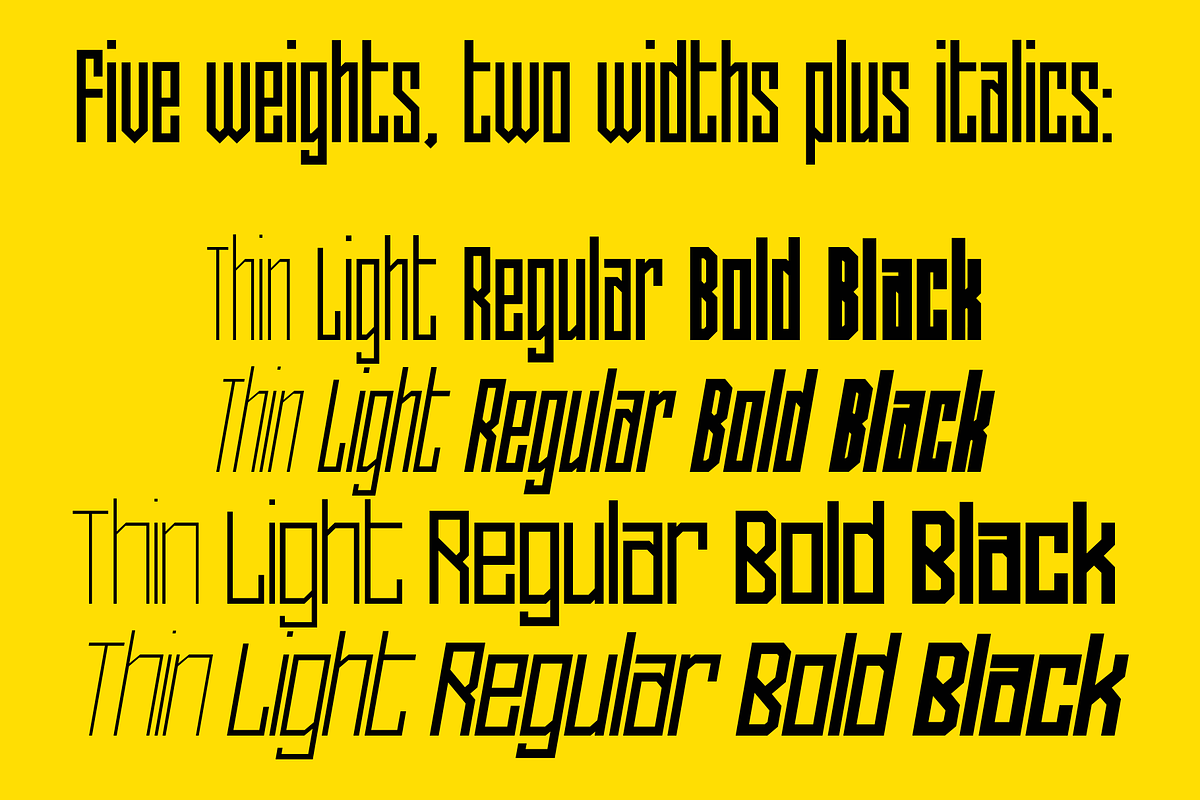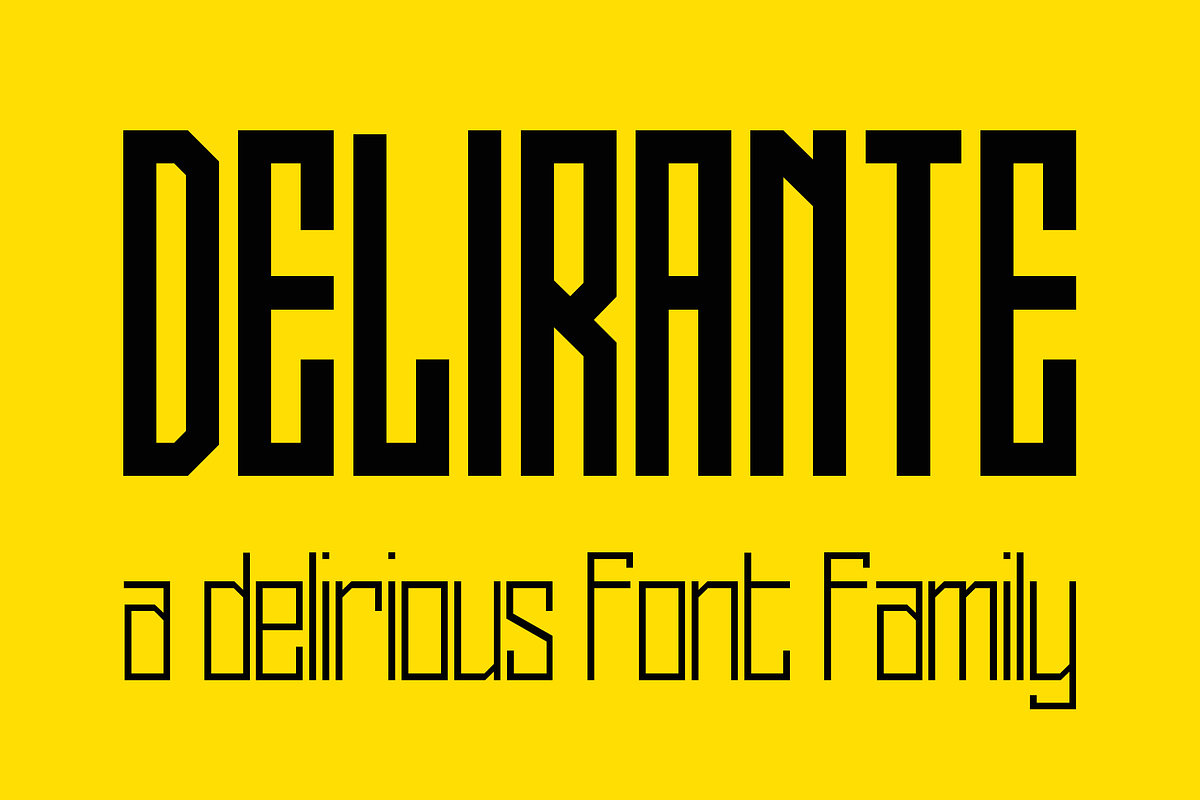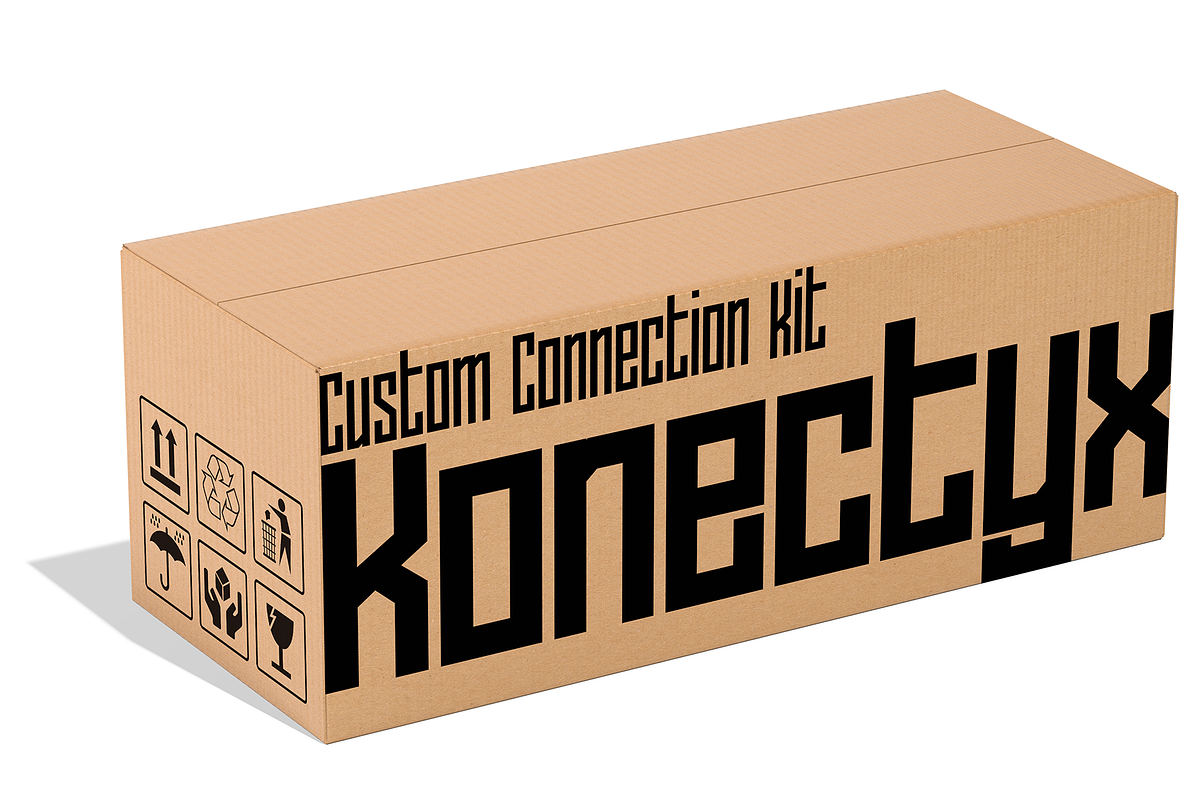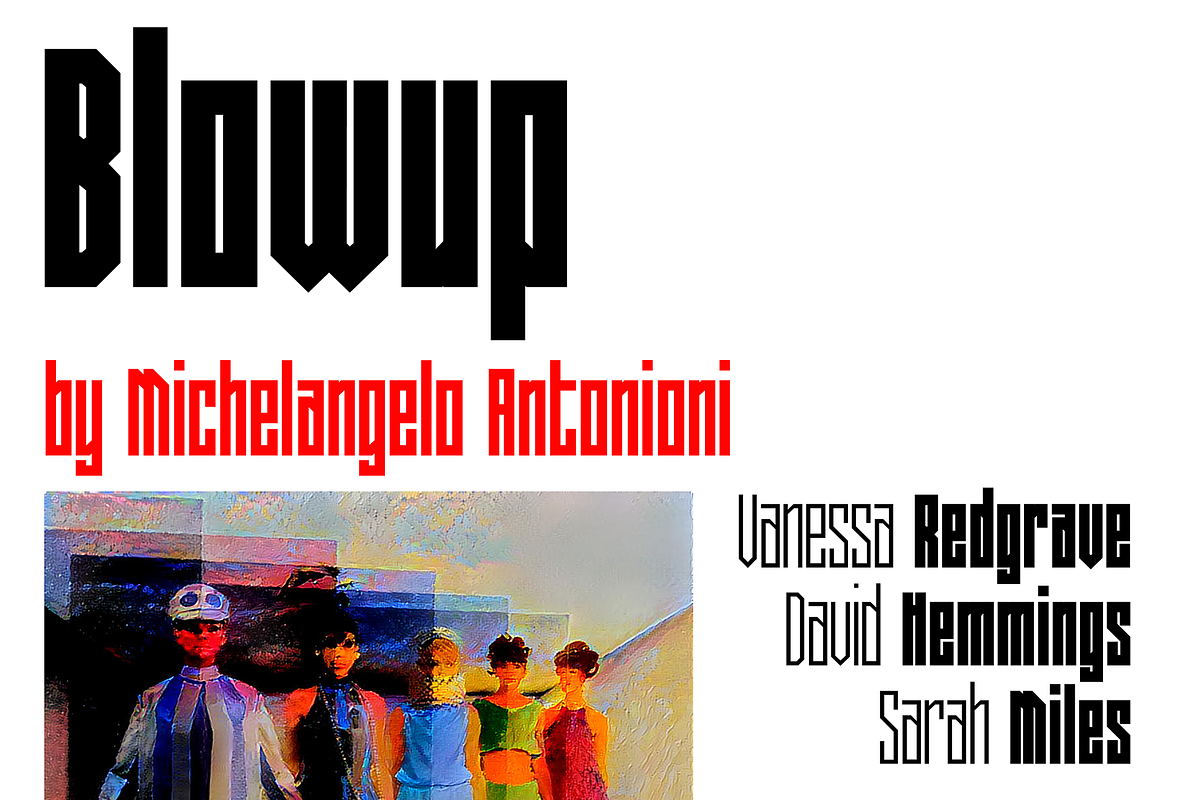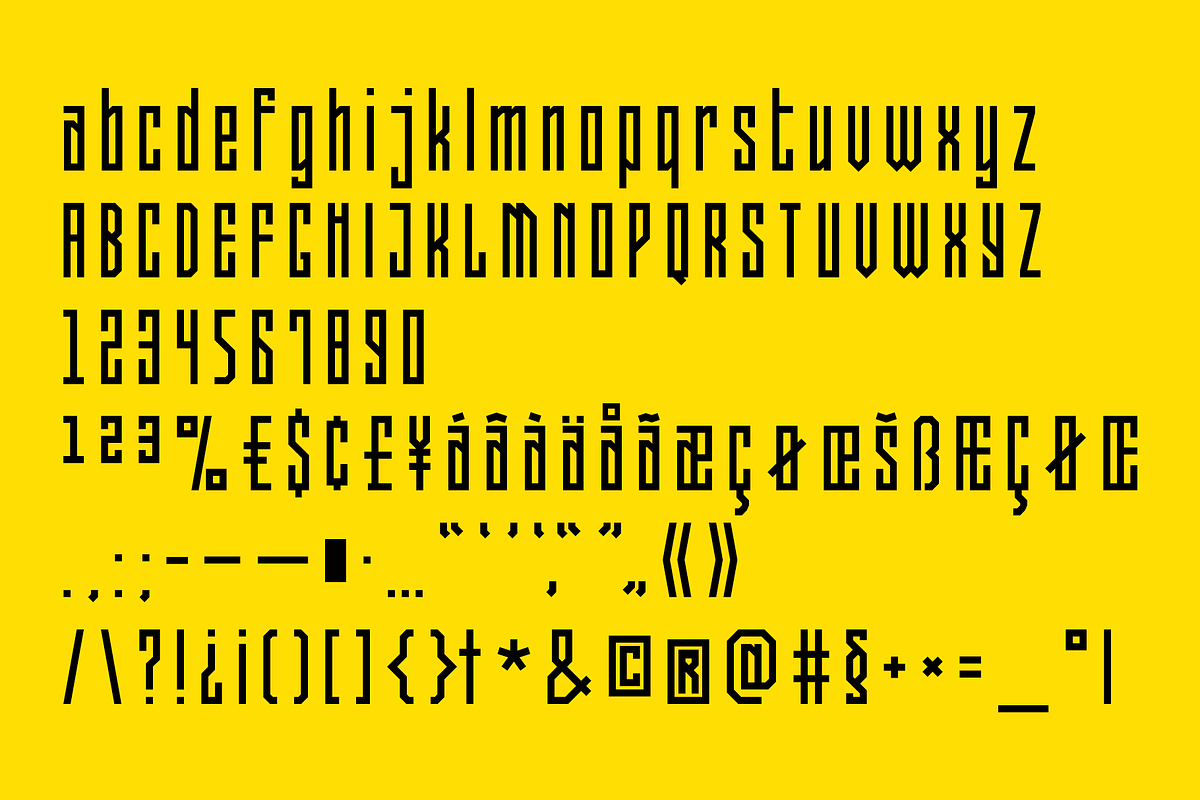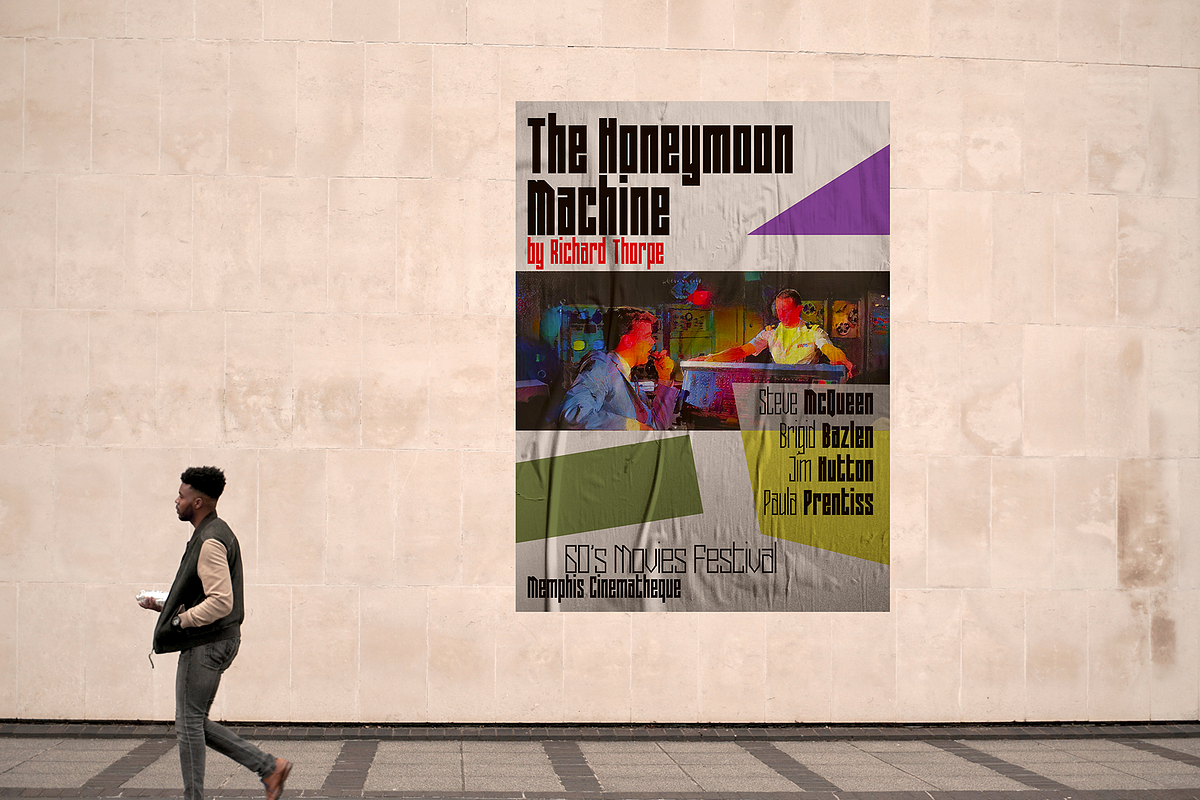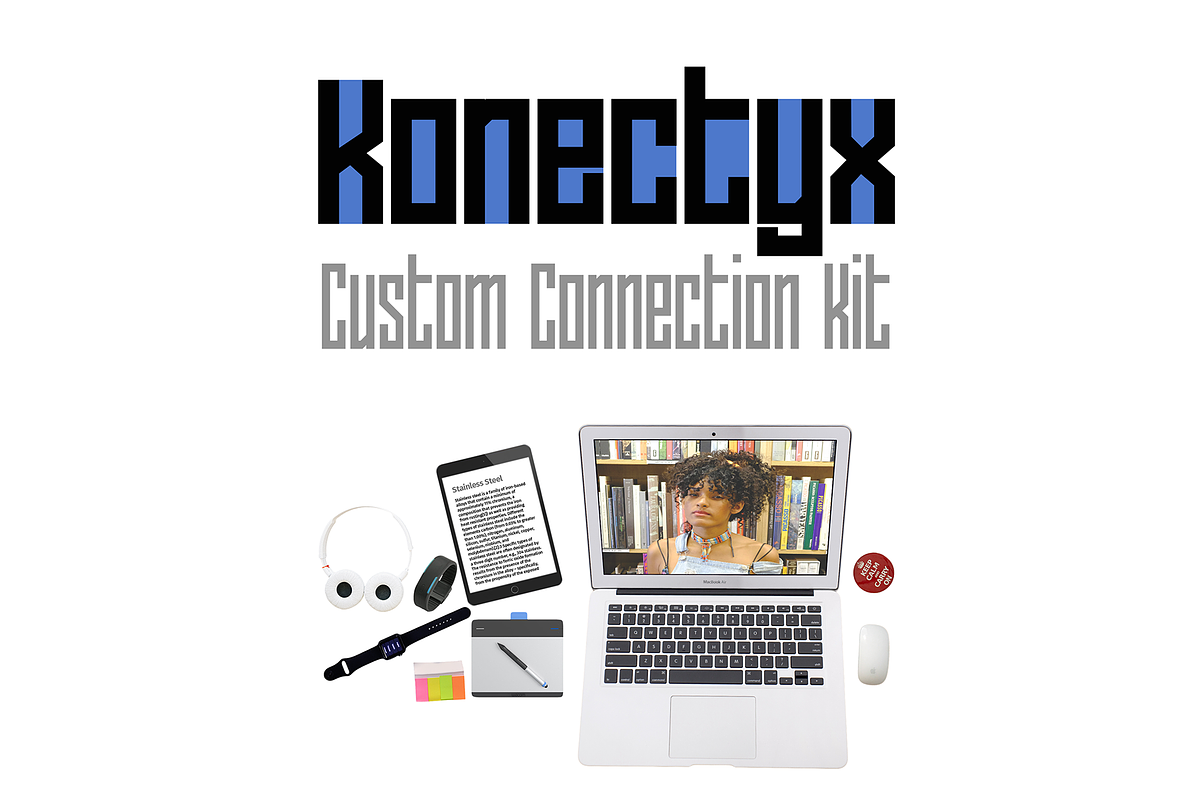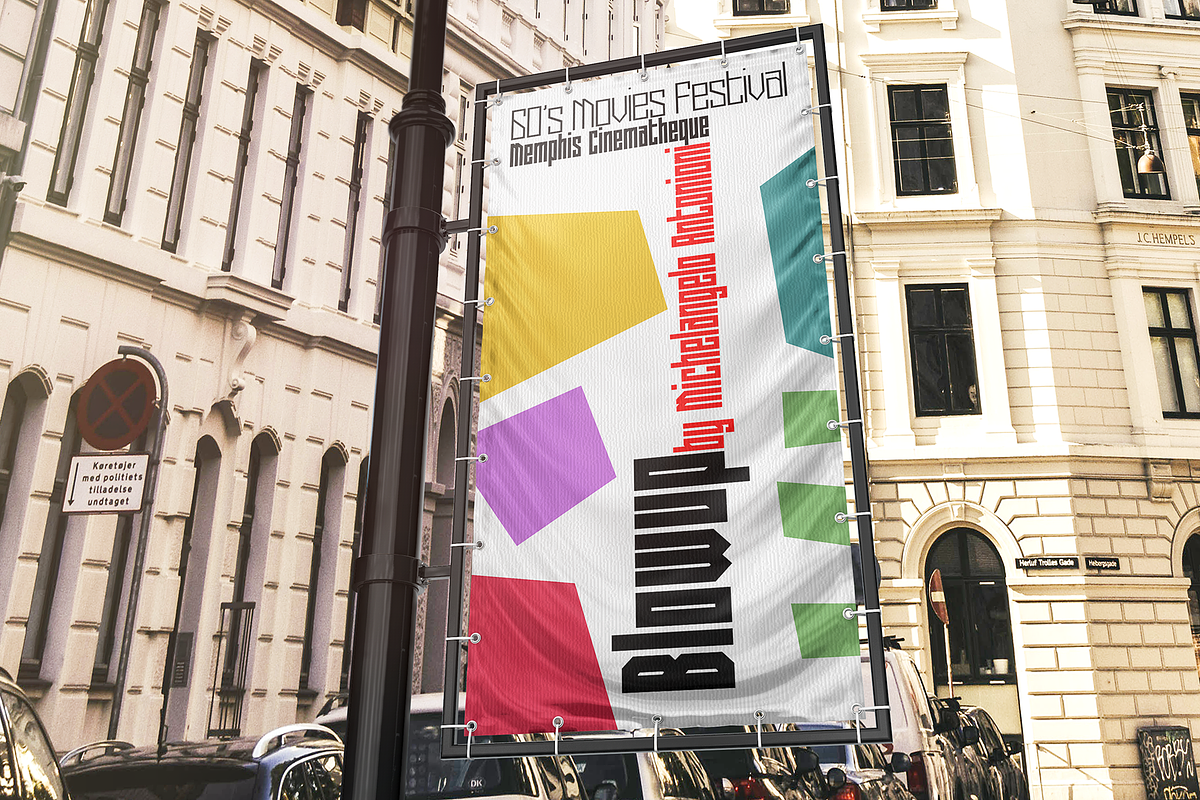
Delirante Font Family
Delirante means delirious in Portuguese. Delirante is a retro font that evokes dreams of utopic worlds, sci-fi rockets and muscle cars. It is a strong yet playful family with 20 fonts: